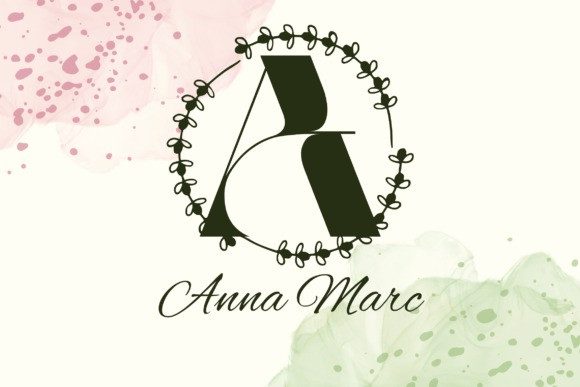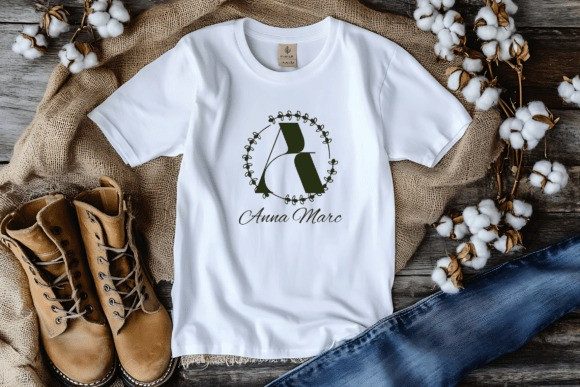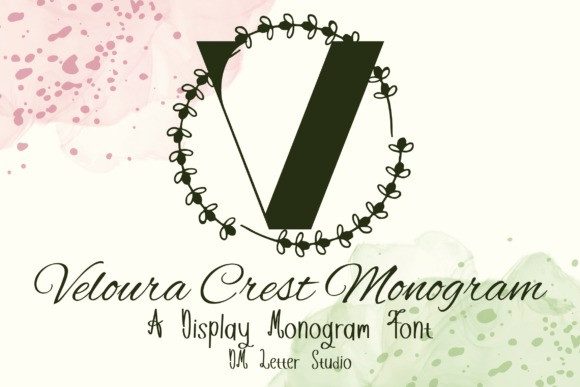
Veloura Crest Monogram Font
Veloura Crest Monogram Font is a decorative serif monogram font inspired by timeless heraldic elegance. Each uppercase letter is crowned with graceful curves and classic embellishments, evoking the sophistication of vintage crests and aristocratic emblems. This font is ideal for upscale branding, luxury packaging, wedding invitations, personalized gifts, home decor, and craft projects that call for a royal touch.
Crafted for creatives and crafters alike, Veloura Crest Monogram blends ornamental charm with refined readability. The serif structure is strong and stately, while the decorative leaf-inspired swashes surrounding each character bring an organic elegance. Whether you’re designing a logo for a boutique, creating engraved items, or working on Cricut and Silhouette projects, this font delivers elegance in every letter.
Veloura’s monogram style stands beautifully on its own or paired with script or minimalist fonts. Its versatile design makes it suitable for branding suites, monogram logos, stationery, signs, and premium product labels. This font works seamlessly with Canva, Adobe Illustrator, Photoshop, Inkscape, and other popular design tools.
Whether you’re adding initials to a linen set, designing a signature logo, or customizing an invitation suite, Veloura Crest Monogram provides a classic and personalized look that elevates any creation.